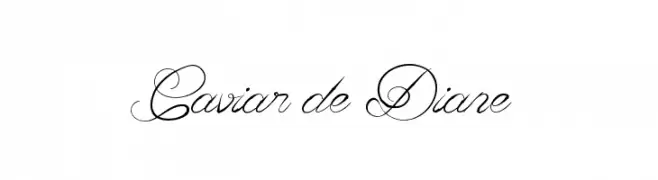
A futuristic font with a halftone pattern and geometric design.
A playful, casual handwritten script with thin, flowing lines.
A graceful and sophisticated script font with flowing, interconnected letters.
A dot matrix font with a digital, retro-tech aesthetic.
An ornate, decorative font with intricate, stained glass-like designs.
A playful, melting-effect font with bold, blocky characters.
A cursive, handwritten font with elegant and fluid strokes.
A bold, geometric font with clean lines and a modern style.
A playful and elegant script font with flowing, interconnected letters.
A sleek, thin, and italic font with a modern and elegant design.
An ornate outlined Blackletter font with intricate detailing and a medieval flair.
A geometric, futuristic font with bold, angular letterforms and minimal contrast.
A dynamic, gradient italic font with a futuristic and speedy appearance.
A bold, modern sans-serif font with excellent readability.
A futuristic, angular font with a bold and dynamic style.
A bold, geometric, and condensed font with a modern and futuristic style.
Elegant cursive script with flowing, handwritten style.
A modern, geometric font with bold uppercase and smooth lowercase letters.
A bold, ornate blackletter font with intricate details and a gothic style.
A bold, italicized font with sharp angles and a dynamic, aggressive style.
A bold, handwritten script font with a playful and energetic style.
A whimsical, flowing handwritten font with elegant, thin strokes.
A refined serif font with a semi-condensed, thin structure, ideal for elegant and professional use.
A modern, geometric sans-serif font with clean lines and uniform strokes.
An elegant, italic script font with flowing, cursive strokes.
A bold, cursive script font with a playful and energetic style.
A modern vintage font with tall, narrow letterforms and subtle serifs.
A playful, handwritten font with smooth curves and a casual style.
A bold, geometric font with a modern, angular style.
A bold, geometric font with a modern and assertive style.
A bold, slanted outline font with a futuristic and geometric style.
A classic serif font with elegant lines and moderate contrast.
A bold, three-dimensional font with a vintage comic book style.
A bold, italicized decorative font with a dotted interior and thick outlines.
A playful, heart-themed font with a hand-drawn, whimsical style.